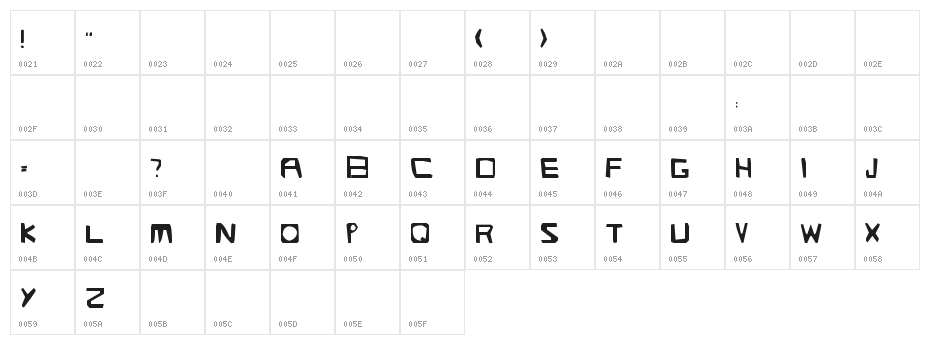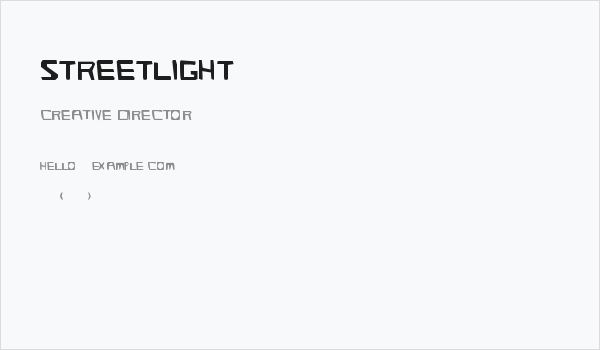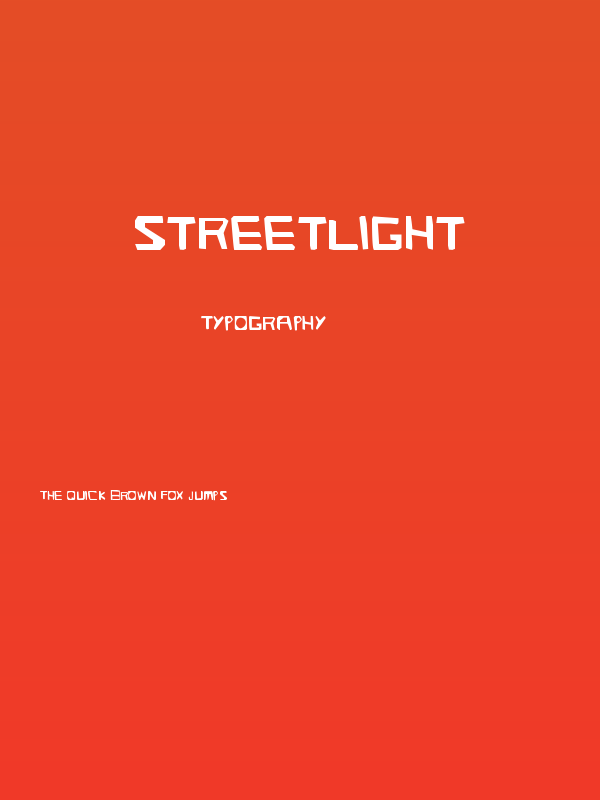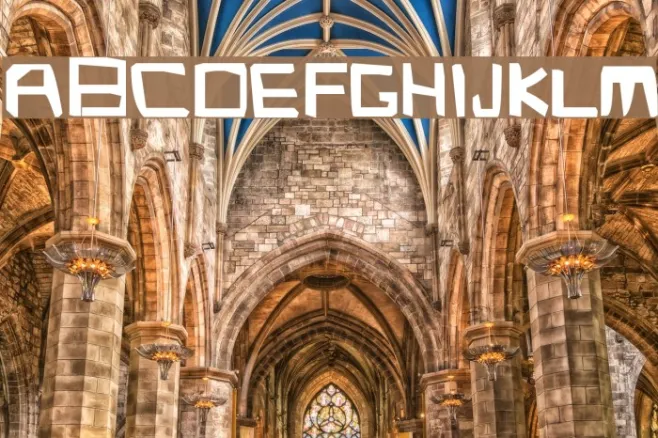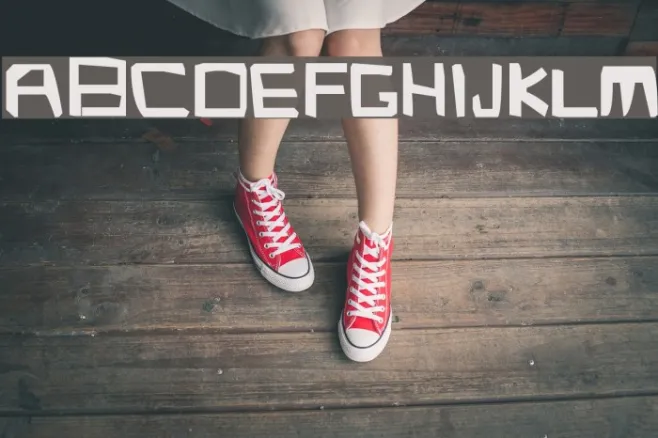
Streetlight Font
Streetlight Description
This font features a bold and angular design, characterized by its sharp edges and geometric shapes. The uppercase letters are distinct with a futuristic and edgy appearance, making it stand out in any design. The lowercase letters maintain the same angular style, ensuring consistency throughout the typeface. The numbers and special characters are crafted to match the overall aesthetic, providing a cohesive look. This font is ideal for projects that require a modern and impactful visual presence.
STREETLIGHT UPPERCASE
STREETLIGHT LOWERCASE
STREETLIGHT OTHER CHARS